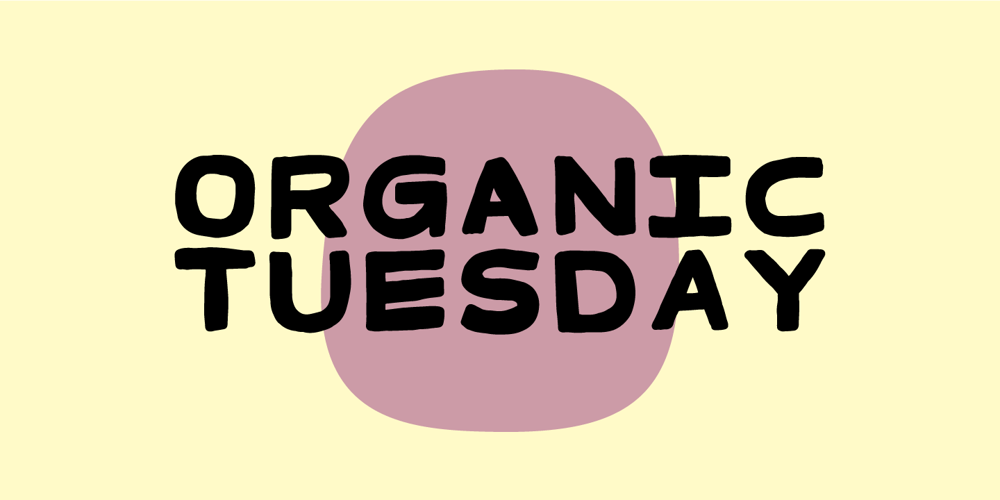
Organic Tuesday Font Family was designed by Jakob Fischer and published by Bogstav. Organic Tuesday contains 2 styles and family package options. Sometimes you need things organised in a neat way. Organic Tuesday has that, but also a will to break free at the same time.Years ago I was at a restaurant where the menu was handwritten with a clumsy, but characteristic and charming, monospaced font. I must have focused so much on these letters that I can’t recall what I actually ate. But what I do remember is that it was a Tuesday, and the restaurant was organic!